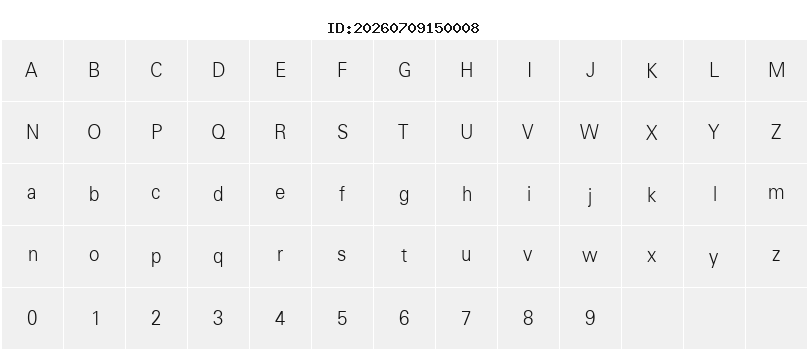
DSE AnuRak Preview
• Font Name: DSE AnuRak
• Full Font Name: DSE AnuRak
About DSE AnuRak.ttf
DSE AnuRak.ttf is a modern, elegant sans-serif font designed for ultimate readability and visual harmony. Perfect for branding, headlines, web design, and print materials.